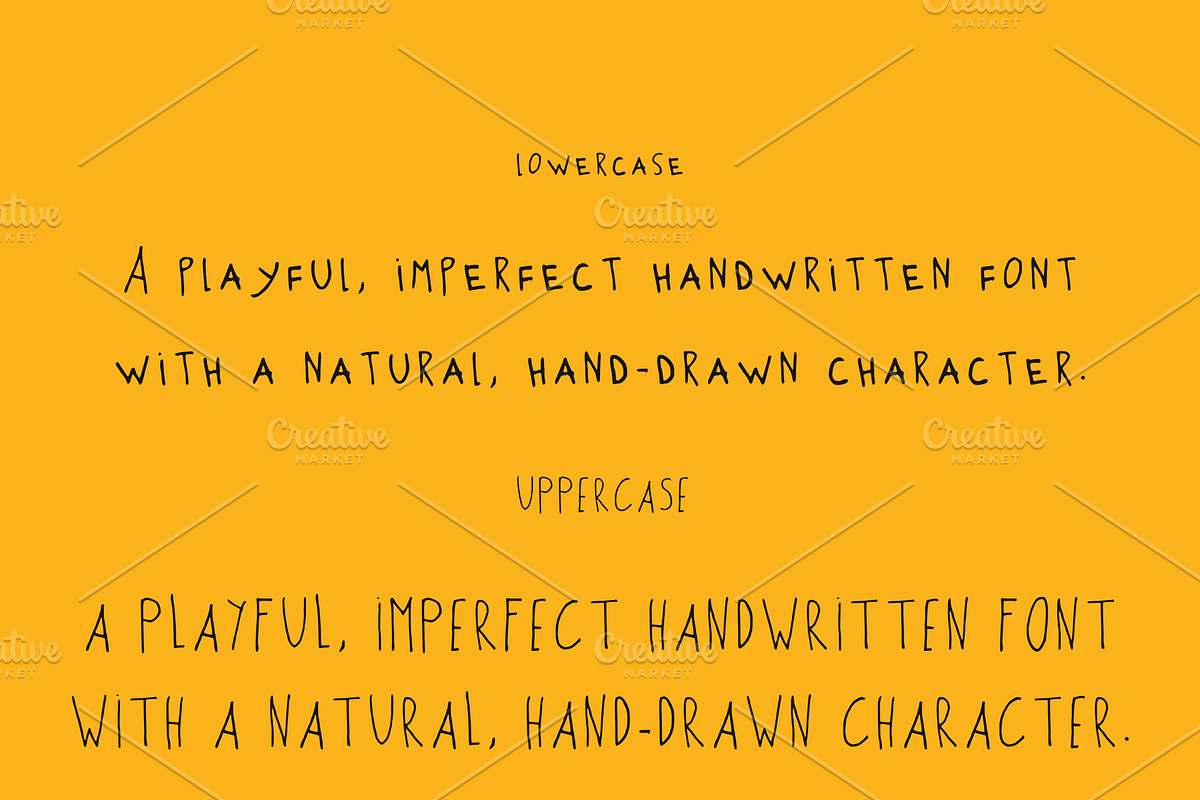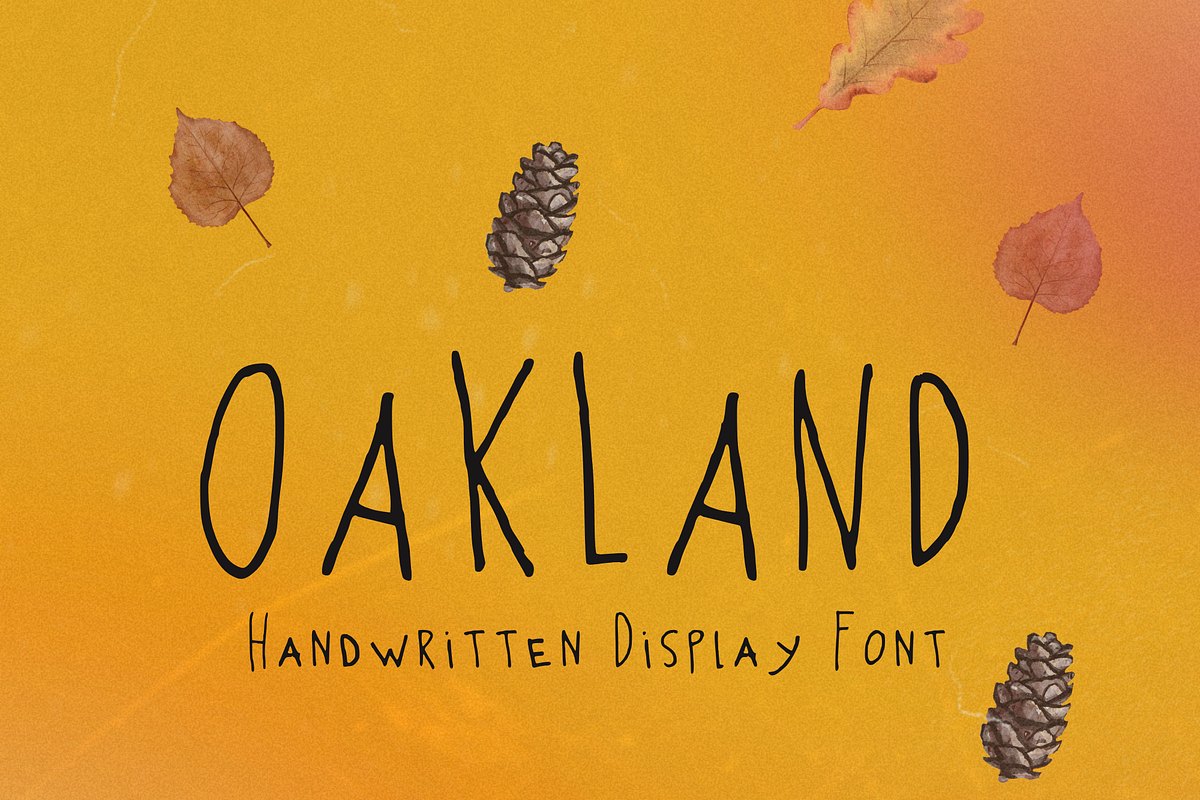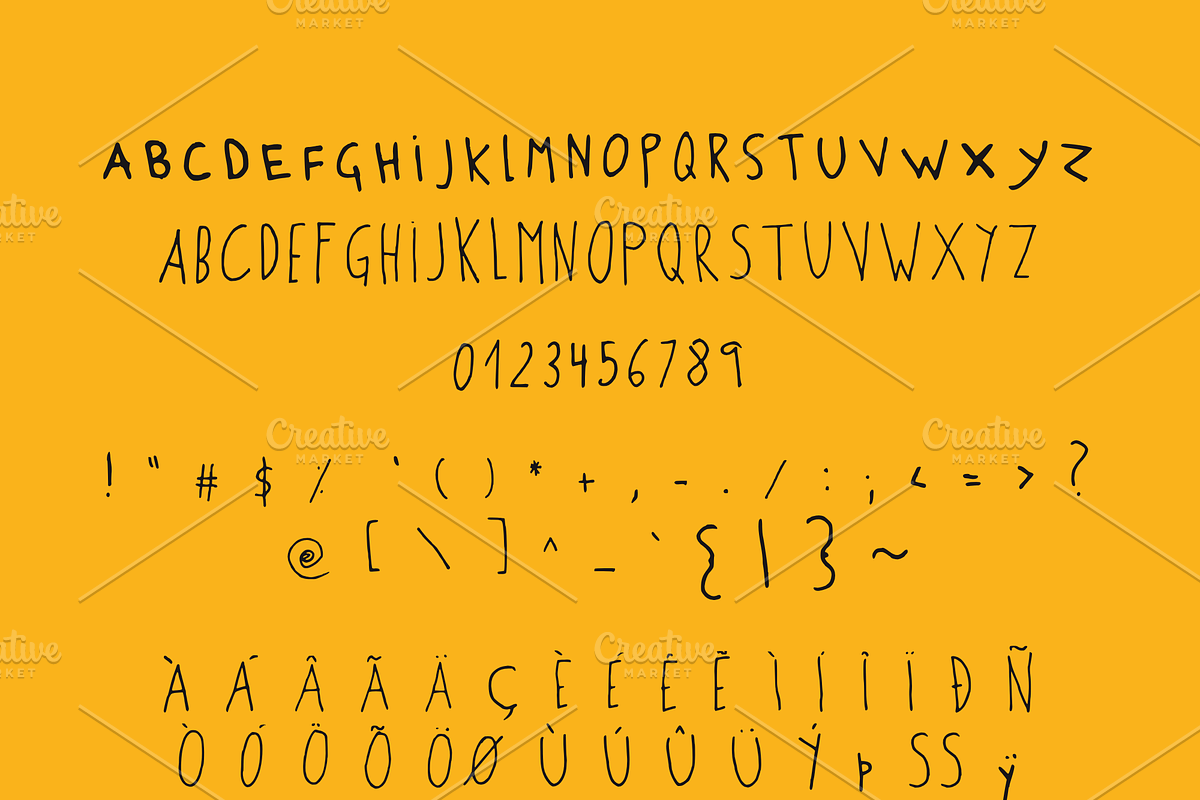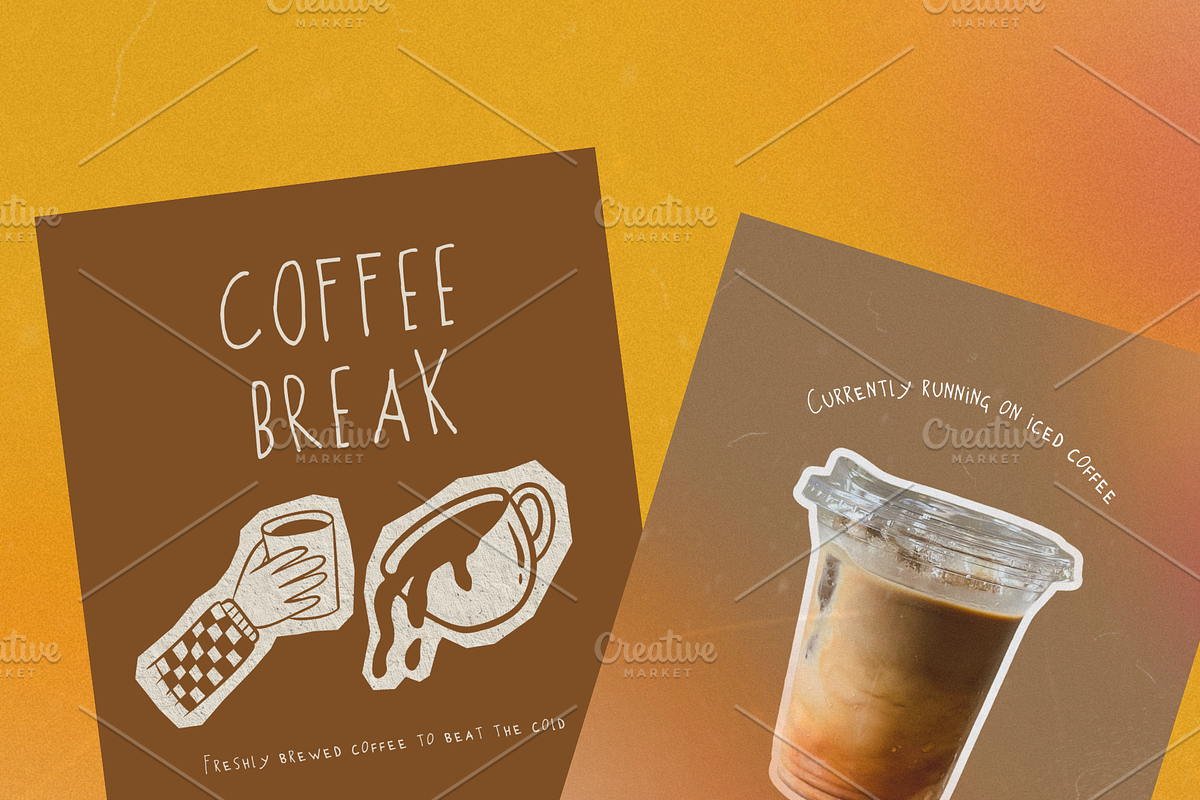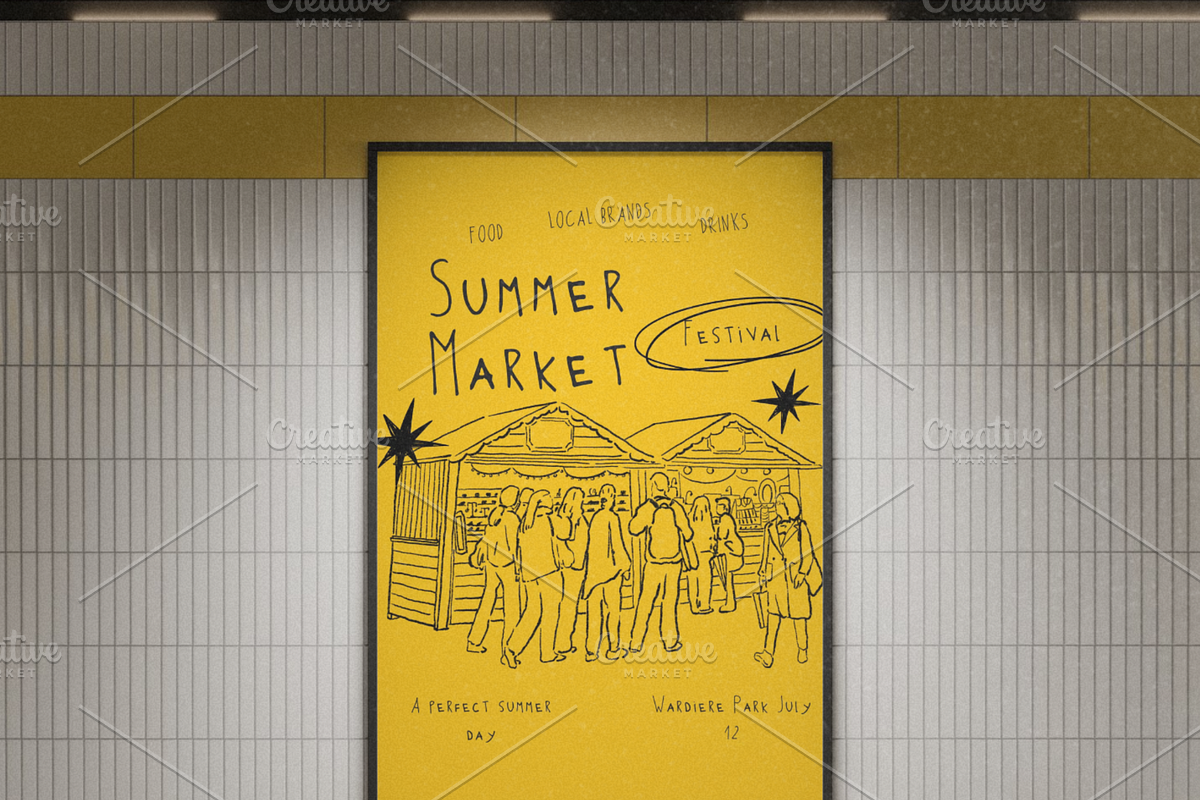
OAKLAND — HANDWRITTEN DISPLAY FONT
Oakland is a playful handwritten display font with an imperfect, natural character — made for branding, packaging, editorial design, social media, posters and creative projects that need a personal touch.
With its narrow proportions and hand-drawn feel, Oakland brings a casual, human quality to your typography without feeling overly polished or formal.
Use it for short headlines, quotes, labels, logos, packaging, stationery and all those little pieces of design that need something more personal.
THE OAKLAND FEEL
• Handwritten & hand-drawn character • Narrow, expressive letterforms • Natural, imperfect appearance • Casual and creative personality • Great for display typography • Designed to stand out in short phrases and headlines
PERFECT FOR
• Logo & brand design • Packaging • Labels & product design • Posters • Editorial design • Book covers • Social media graphics • Quotes & typography • Stationery • Invitations • Merchandise • Small business branding • Creative campaigns • Personal projects
CHARACTER SUPPORT
Oakland includes a broad selection of Latin accented characters, making it suitable for many Western European languages.
GREAT FOR
BRANDING Create a distinctive handwritten identity for small businesses, creative brands and personal projects.
PACKAGING Add a handmade, approachable feel to labels, boxes, bags and product packaging.
EDITORIAL Use Oakland for headlines, pull quotes, covers and small typographic details.
SOCIAL MEDIA Create eye-catching quotes, announcements, captions and campaign graphics.
POSTERS & PRINT Its display character works particularly well at larger sizes where the irregular letterforms can stand out.